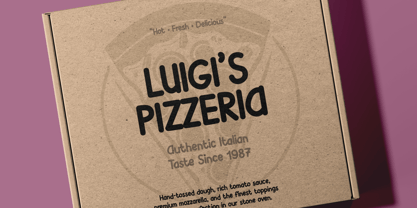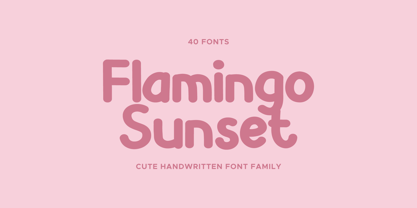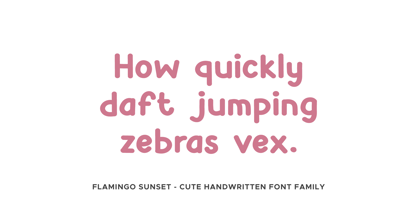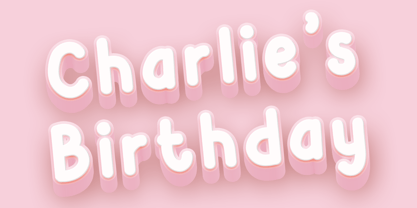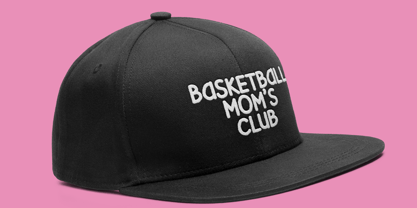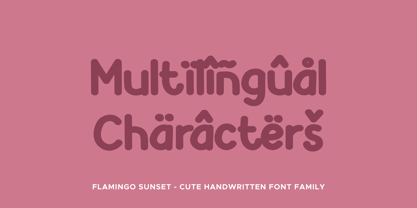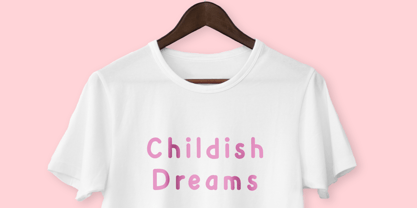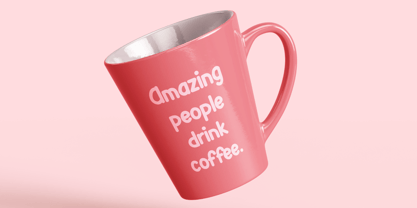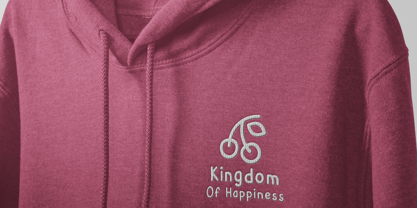
Flamingo Sunset
The Flamingo Sunset Font Family was designed by Mariia Çakıcı and published by OtterType. Flamingo Sunset contains 40 styles and family package options. More about this family
Flamingo Sunset is a versatile handwritten typeface that balances charm and clarity. Non-cursive, cute, and highly readable, it supports 86 languages and comes with 40 expressive styles—from clean and regular to rough, worn, inked, and brushed—making it ideal for branding, packaging, editorial, and digital use. Language support: Afrikaans, Albanian, Asu, Basque, Bemba, Bena, Cebuano, Chiga, Cornish, Corsican, Danish, English, Estonian, Faroese, Filipino, Finnish, French, Friulian, Galician, German, Gusii, Icelandic, Ido, Indonesian, Interlingua, Irish, Italian, Javanese, Jju, Kabuverdianu, Kalaallisut, Kalenjin, Kinyarwanda, Lojban, Low German, Luo, Luxembourgish, Luyia, Machame, Makhuwa-Meetto, Makonde, Malagasy, Malay, Manx, Morisyen, North Ndebele, Northern Sotho, Norwegian Bokmål, Norwegian Nynorsk, Nyankole, Occitan, Oromo, Portuguese, Rejang, Romansh, Rombo, Rundi, Rwa, Samburu, Sango, Sangu, Sardinian, Scottish Gaelic, Sena, Shambala, Shona, Soga, Somali, South Ndebele, Southern Sotho, Spanish, Sundanese, Swahili, Swati, Swedish, Swiss German, Taita, Taroko, Teso, Tsonga, Tswana, Vunjo, Walloon, Wolastoqey, Xhosa, Zulu Thank you!
Mariia Çakıcı is an independent type designer creating a growing library of over 70 fonts, including large families with up to 40 styles. The collection focuses on Latin script and is built for branding, social media, packaging, and modern digital design. The portfolio includes everything from elegant handwritten scripts to bold display fonts and clean contemporary typefaces. Each font is designed to be versatile, easy to use, and ready for real-world projects—helping designers create distinctive and professional visuals with ease.